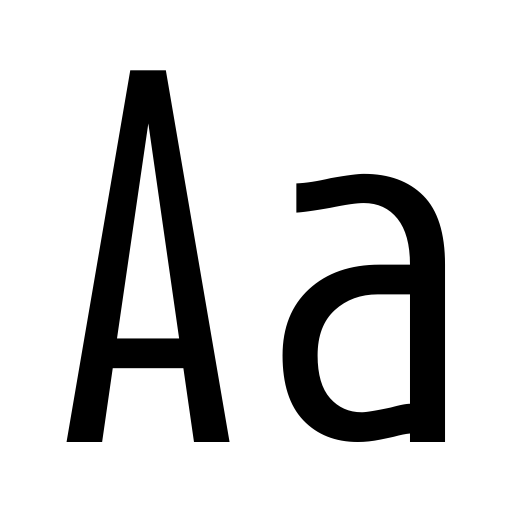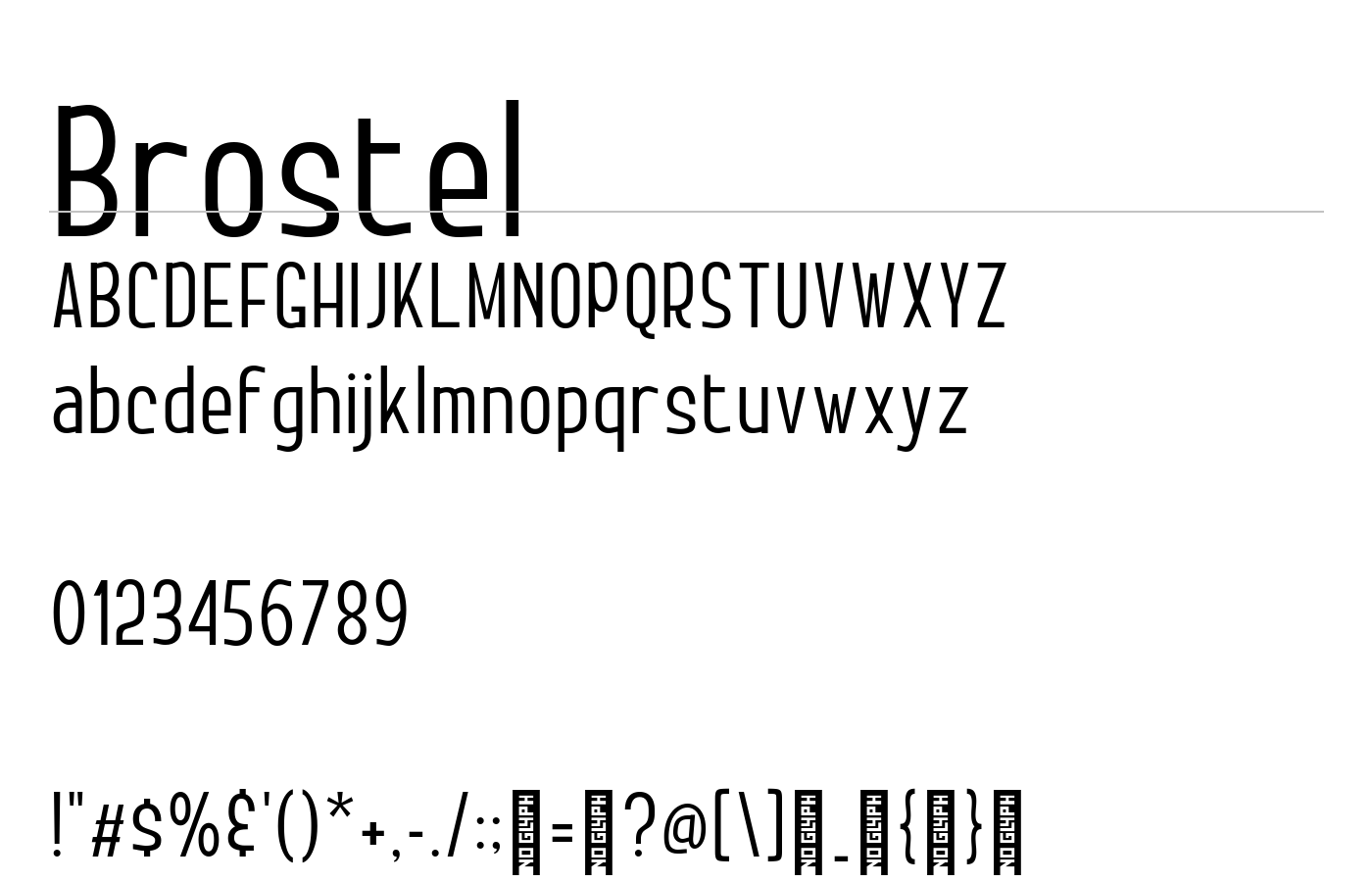
Brostel is a narrow, tall sans serif font with a clean and modern look, featuring consistent stroke weight and minimal contrast. Its slender letterforms and high x-height make it highly readable and stylish, ideal for sleek branding, editorial headlines, and contemporary design projects where a refined yet strong presence is needed. This font works well in spaces demanding an elegant, minimalistic feel without sacrificing clarity.
Brostel Font
About Brostel Font
| Font family | Brostel Font |
| Designer | Alit Suarnegara |